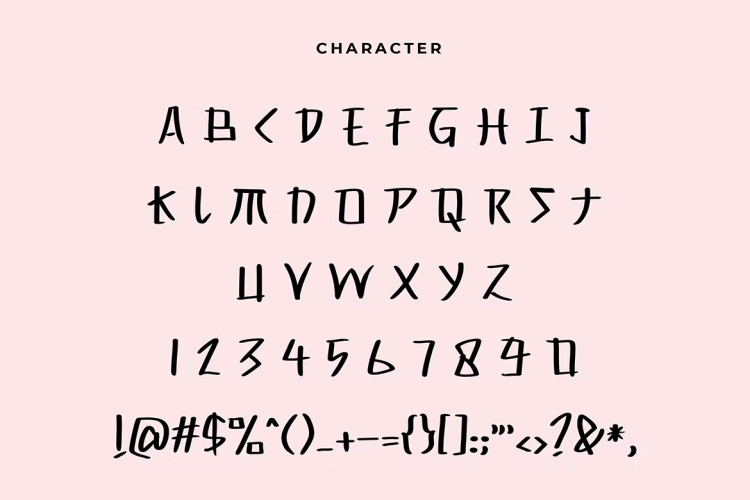
Yahiko Playful Handwritten Font
Yahiko is playful modern handwritten font. This font perfect for branding projects, logo, book cover design, tshirt designs, social media posts, advertisements, product…
Yahiko is playful modern handwritten font. This font perfect for branding projects, logo, book cover design, tshirt designs, social media posts, advertisements, product packaging, product designs, label, watermark, invitation, stationery and any projects
Where Yahiko Playful Handwritten Font works best
A short phrase in Yahiko Playful Handwritten Font carries warmth that a typeset sans cannot fake; keep the rest of the card plain.
Chalkboard-style headings in Yahiko Playful Handwritten Font make a menu feel hand-made. Keep the dish descriptions in a simple face so prices stay readable.
One line of Yahiko Playful Handwritten Font over a photo is enough; the script carries the tone and the caption does the work.
What kind of work does Yahiko Playful Handwritten Font suit?
It sits in the Script And Handwritten group and reads as branding, handwritten, modern, playful. That makes it a candidate wherever those qualities help: headings, packaging, social graphics and brand work. Set it at the size you plan to use before deciding.